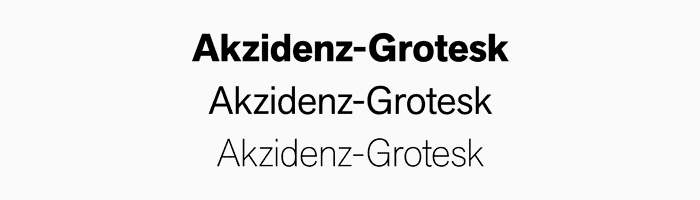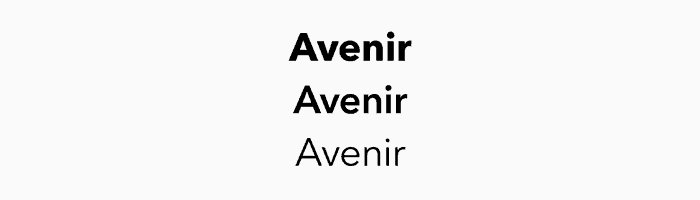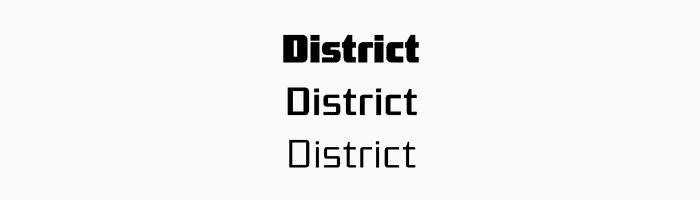
As a self-assured lover of typography, I’m always looking for fresh logo design fonts. A fully-developed font family makes a designer smile – it allows for adaptability within it’s usage whilst pertaining to a consistent, predefined design ethos. Below I have listed some current favourites from my ever increasing font library that work well as logo design fonts. Initially when making this list, I had decided to do a top 10, which quickly became a top 20. Needless to say this spiraled wildly out of hand and I had to restrict myself. I told you, I’m a lover of typography.
Almost all the logos I create (from a typographic standpoint) are derived from, or inspired by existing typefaces; edited and customised to fit the requirement. Even if I feel a project requires a 100% bespoke and designed typeset, looking at existing fonts is a good place to start. This means that a well-organised and managed font library is an essential tool in a designers box – in my case I use Suitcase Fusion as it integrates well with the Adobe Suite. In this post I have kept it simple, sans-serif and serif.
Sans-serif fonts
Berthold first published Akzidenz-Grotesk in 1898. Originally named “Accidenz-Grotesk” the design originates from Royal Grotesk light by royal type-cutter Ferdinand Theinhardt. The Theinhardt foundry later merged with Berthold and also supplied the regular, medium and bold weights.
Apex New supersedes Apex Sans, which was originally released in early 2003, designed by Chester Jenkins
The word Avenir means ‘future’ in French and hints that the typeface owes some of its interpretation to Futura. But unlike Futura, Avenir is not purely geometric; it has vertical strokes that are thicker than the horizontals, an “o” that is not a perfect circle, and shortened ascenders. These nuances aid in legibility and give Avenir a harmonious and sensible appearance for both texts and headlines.
Bree, based on TypeTogether’s logotype, is a sleek sans serif that delivers a polished and modern look and feel for branding or headline usage.
Cronos is a sans serif typeface family that embodies the warmth and readability of Oldstyle Roman typefaces. It derives much of its appearance from the calligraphically-inspired type of the Italian Renaissance. Its almost handwritten appearance sets it apart from most other sans serif designs and makes it an effective choice for text composition. The Italic design was inspired by early Chancery style Italics and is both elegant and distinguished.
Hans Reichel developed the FF Dax family from the idea of combining the clarity of a narrow Futura with a “slightly roman touch”. The result is a space-saving but very legible typeface of timeless design. Daxline is the revised and improved version of FF Dax.
The Frutiger™ family is neither strictly geometric nor humanistic in construction; its forms are designed so that each individual character is quickly and easily recognized. Such distinctness makes it good for signage and display work. Although it was originally intended for the large scale of an airport, the full family has a warmth and subtlety that have, in recent years, made it popular for the smaller scale of body text in magazines and booklets.
Museo Sans is based on the well-known Museo. It is a sturdy, low contrast, geometric, highly legible sans serif typeface very well suited for any display and text use.
The Ubuntu Font Family are a set of matching new libre/open fonts in development during 2010–2011. The development is being funded by Canonical Ltd on behalf the wider Free Software community and the Ubuntu project. The technical font design work and implementation is being undertaken by Dalton Maag.
FF Unit was designed by Erik Spiekermann and produced by Christian Schwartz. FF Unit is the grown-up, no-nonsense sister of Spiekermann’s famous FF Meta.
Serif fonts
Sweet but not saccharine, earnest but not grave, Archer is designed to hit just the right notes of forthrightness, credibility, and charm.
While inspired by the past, Arno is distinctly contemporary in both appearance and function. Designed by Adobe Principal Designer Robert Slimbach, Arno is a meticulously-crafted face in the tradition of early Venetian and Aldine book typefaces.
Aviano is an extended titling face with influence from the power and timeless beauty of classical letterforms. Aviano features extended characters for a formal feel, sharp, powerful looking serifs and geometric and consistent letterforms.
PMN Caecilia™ is the premiere work of the Dutch designer Peter Matthias Noordzij. He made the first sketches for this slab serif design in 1983 during his third year of study in The Hague, and the full font family was released by Linotype in 1990.
Linotype Centennial is quite close in concept to Century, but it also has the characteristic Frutiger enhancements for contemporary elegance and legibility. It has a vertical stress, slightly condensed forms, a tall x-height, and fairly high contrast between thick and thin strokes.
Yes, I think it should work okay. There are a few weights to the ubuntu family, bold may work better with the headings and regular almost everywhere else :)